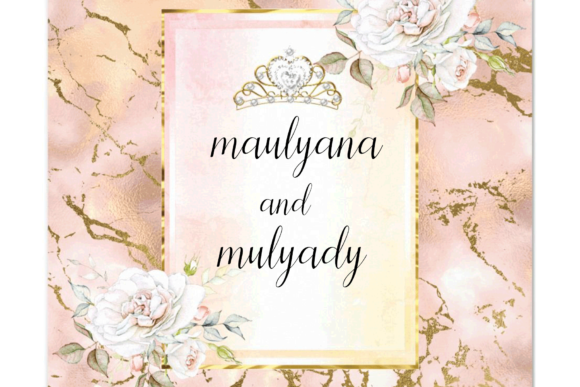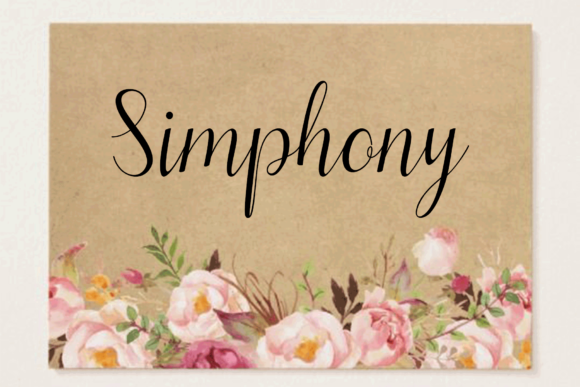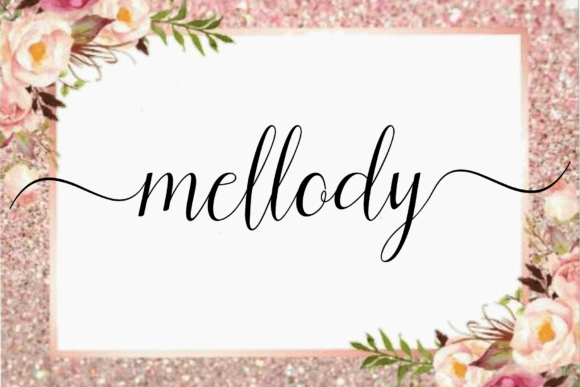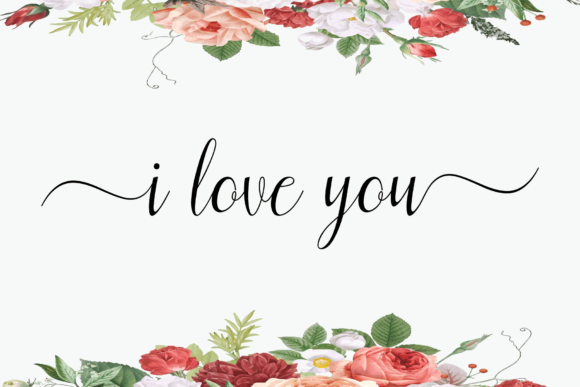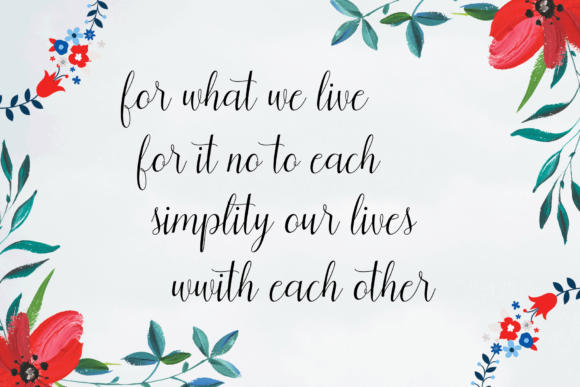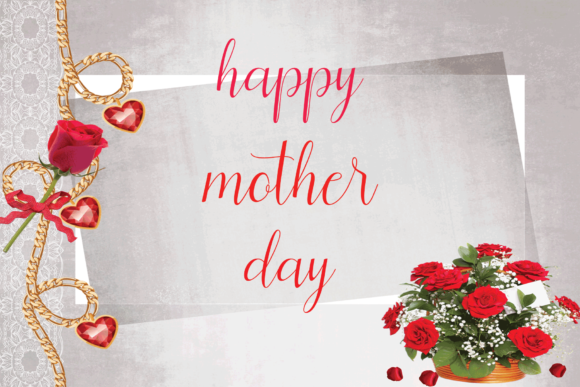
Introduction to Monthlight Font
Do you remember the moment when you stumbled upon the perfect design resource for your creative project? For many of us, it’s a moment of pure joy and excitement. It’s that ‘aha’ moment when everything falls into place, and your project starts to take shape. For designers, this moment often comes when they find a high-quality font that perfectly captures the essence of their vision. And, if you’re a designer looking for that perfect font, you’re in luck because today we’re going to talk about the Monthlight Font.
This beautiful script font is a treasure trove of creative possibilities. With its soft, rounded characters and gorgeous ligatures, the Monthlight Font is the perfect design resource for creating stunning crafts, from wedding invitations to social media posts. And, with its transparent background, you can easily add a decorative touch to your designs.
Key Features of Monthlight Font
- High-quality design: The Monthlight Font is crafted to provide a sophisticated and elegant look for any creative project, making it a valuable design resource.
- Unique characteristics: The font’s unique blend of modern and classic elements makes it an ideal choice for designers seeking a distinctive look for their creative projects.
Honest Review: Monthlight Font
As a designer, I’m always on the lookout for high-quality fonts that can elevate my creative projects. Recently, I stumbled upon the Monthlight Font, and I’m excited to share my honest review with you.
What works well: ✨ I love the elegant and modern design of the Monthlight Font. It’s perfect for creating a sophisticated and professional look for my designs. The font is also highly legible, making it an excellent choice for body text and titles. Additionally, the Monthlight Font is available for free download, which is a huge plus for designers on a budget.
Here are some key features of the Monthlight Font:
- High-quality design for creative projects
- Elegant and modern design
- Legible for body text and titles
Overall, I’m impressed with the Monthlight Font, and I highly recommend it to designers looking for a high-quality font for their creative projects. While it may have some limitations, the benefits far outweigh the drawbacks.
For the best results, use Monthlight Font with a transparent background to make your design stand out. This font is perfect for creating eye-catching titles, headings, and body text. You can also use it for branding, logos, and other design elements that require a high-quality font.